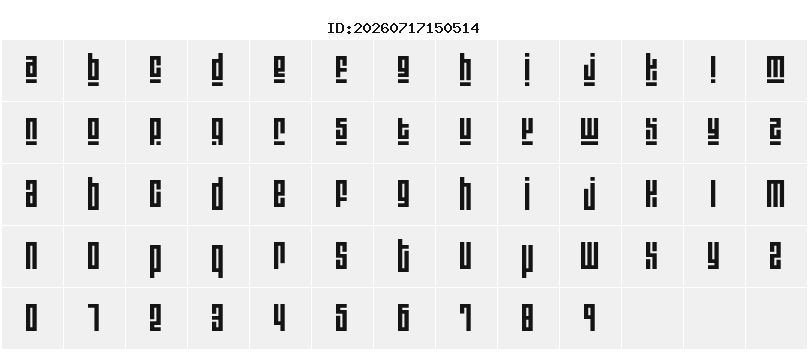
• Font Name: Blackout3 plus1
• Font Style: Light
• Designer: Ryoichi Tsunekawa
About Blackout3 plus1.otf
Blackout3 plus1.otf is a modern, elegant sans-serif font designed for ultimate readability and visual harmony. Perfect for branding, headlines, web design, and print materials.